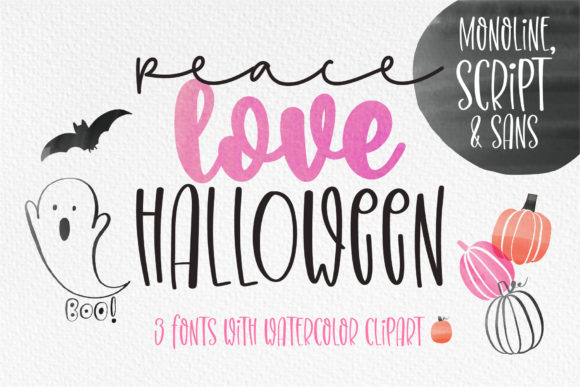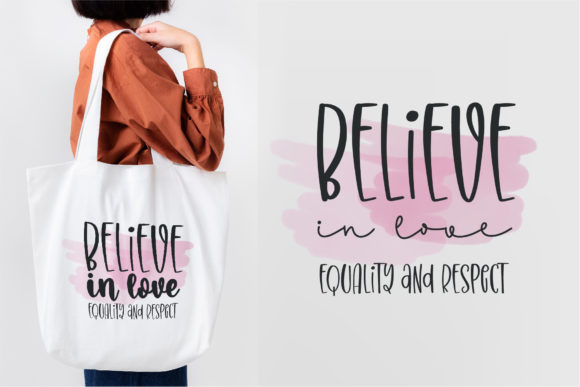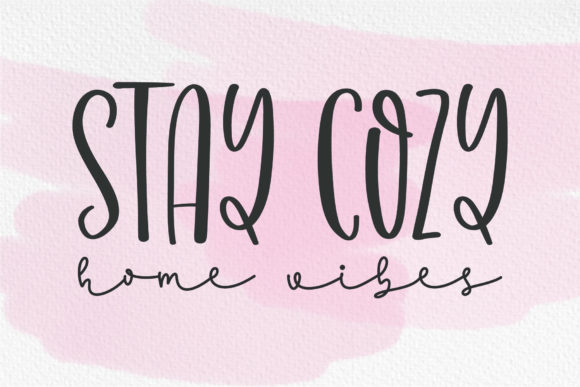
Peace Love Halloween Font
About the Peace Love Halloween Font
The Peace Love Halloween Font is here to transform your projects with its distinctive character and style. Peace Love Halloween is a cute and relaxed trio styled handwritten font. Its natural and unique style makes it suitable for a variety of design ideas. Add it confidently to your projects, and you will love the results.
This font’s playful, relaxed style works best for projects needing a friendly, approachable feel. Ideal applications include short headlines, logos for boutiques or small businesses, social media graphics, and packaging for whimsical products. It would also be effective in invitations or greeting cards. However, avoid using it for body text or lengthy paragraphs; its informal nature makes it less legible for extended reading.
Peace Love Halloween pairs well with clean sans-serif fonts like Open Sans for a balanced contrast, or a more geometric sans-serif for a modern twist. A simple serif font could add a touch of sophistication, depending on the desired aesthetic. Avoid pairing it with overly decorative or highly stylized fonts which might clash with its hand-drawn quality.
The overall personality is light-hearted and informal, projecting a sense of fun and approachability. It’s best suited to brands that value a friendly and casual image.